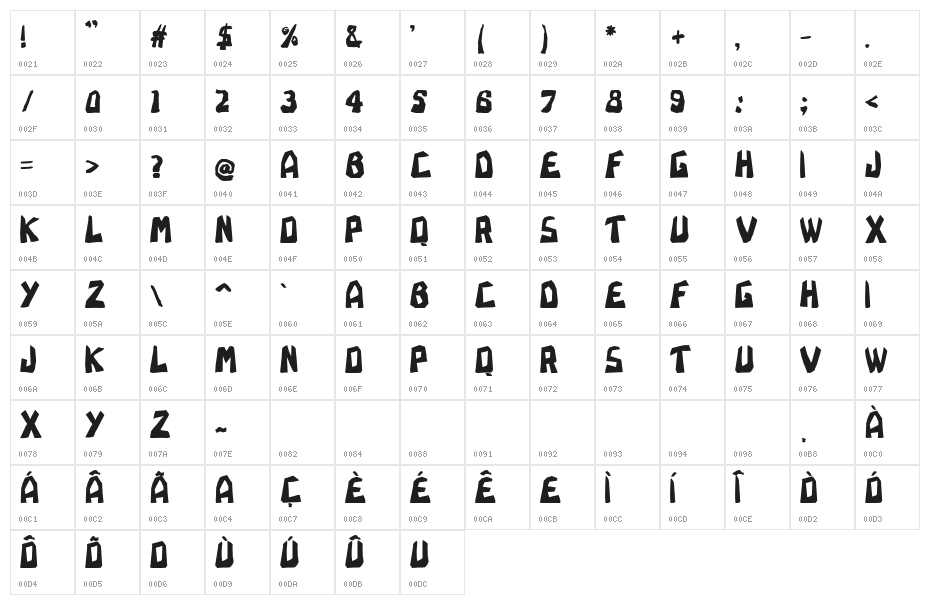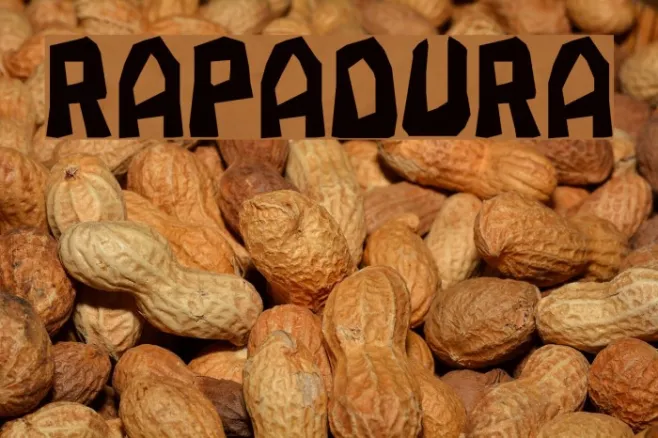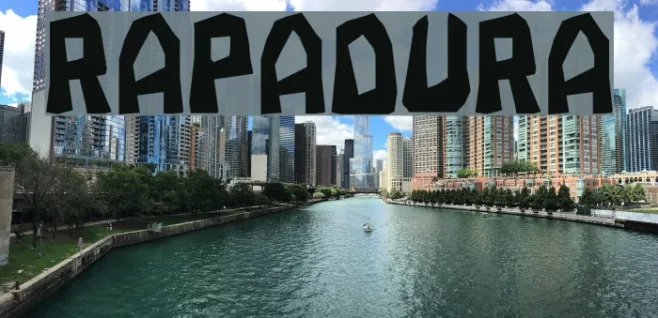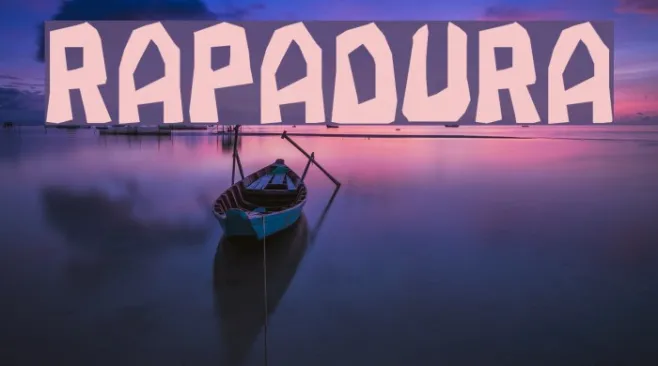
Rapadura Font
Rapadura Description
This font features a bold and dynamic style with a distinctly angular and geometric design. The characters are crafted with sharp edges and irregular shapes, giving it a rugged and edgy appearance. The uppercase and lowercase letters maintain a consistent style, with a strong emphasis on individuality and creativity. The numbers and special characters follow the same design principles, ensuring a cohesive look across all text elements. This font is ideal for projects that require a bold statement and a touch of uniqueness.
| Overall Style | Modern, Edgy |
| Proposed Projects | Perfect for posters, album covers, branding projects, and any design that needs a bold, unique touch. |